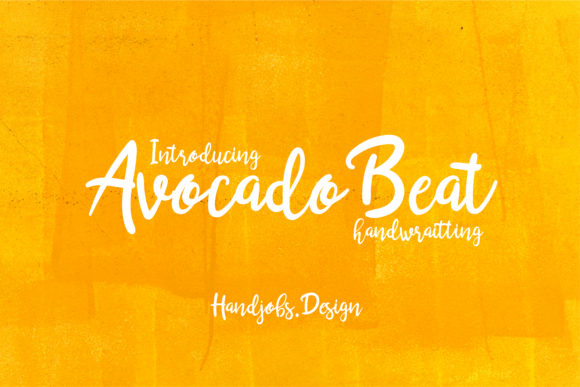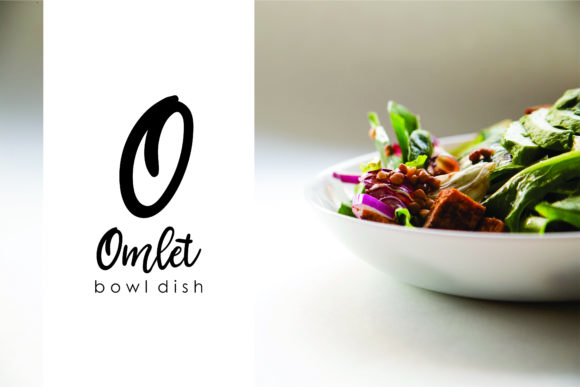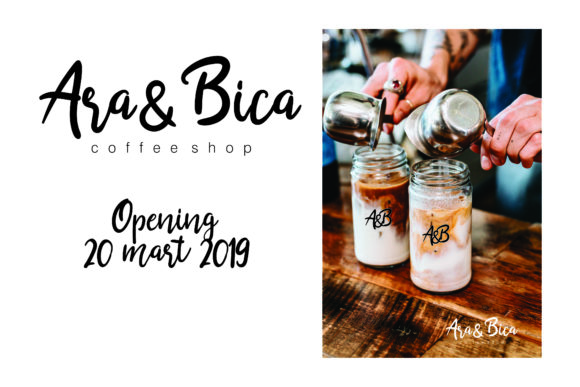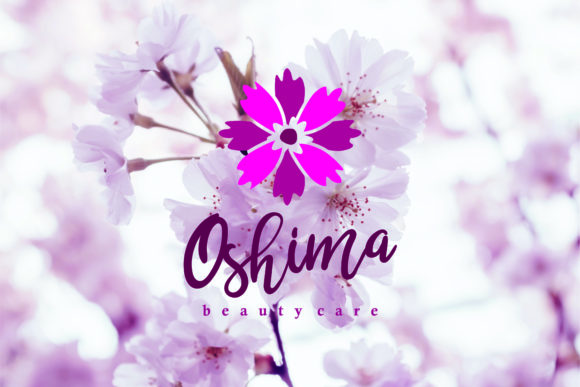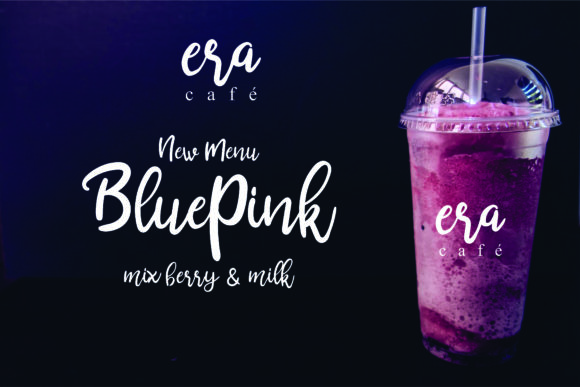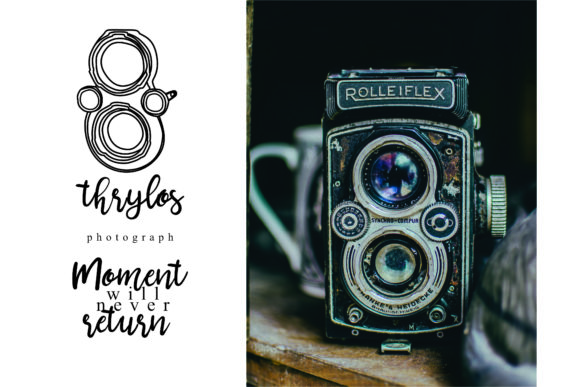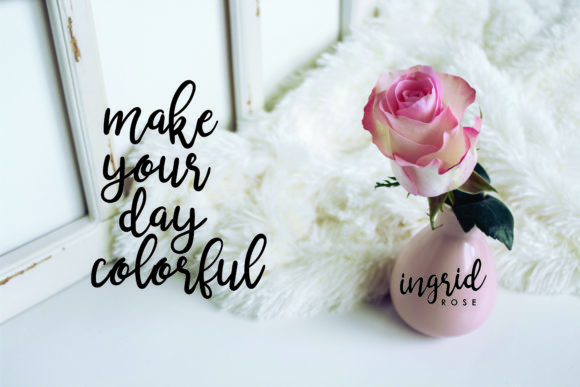
Avocado Beat Font
About Avocado Beat Font
The Avocado Beat is a natural typeface. It’s perfect for adding a natural touch to your layouts, branding, logos, quotes, and much more!